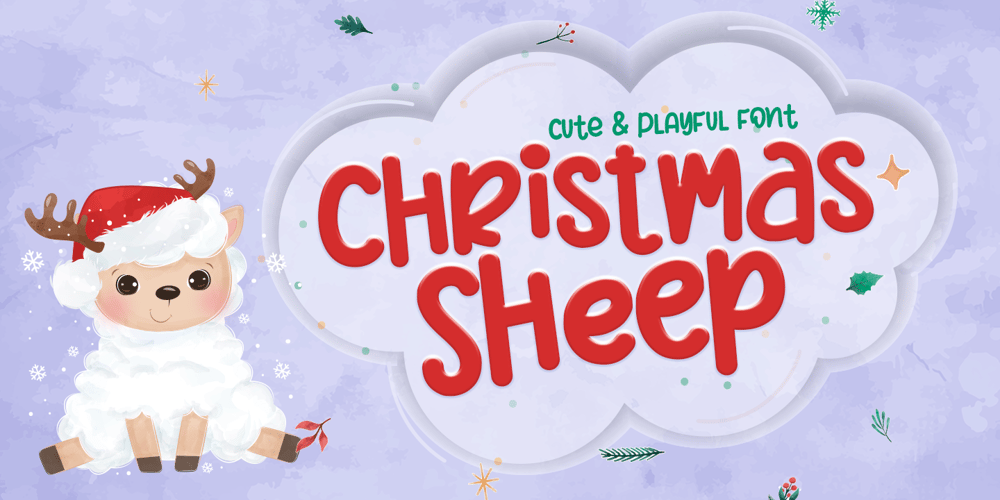
Christmas Sheep Font Family was designed by Stefani Tri Rosa Setiati Christiana and published by Stefani Letter. Christmas Sheep contains 1 styles and family package options. Christmas Sheep is a modern and relaxed display font. It embodies playfulness and authenticity and is the perfect choice for any children activity, school project, Christmas, New Year, Birthday and many more. Add this playful font to your designs and notice how it makes them come alive! This font is PUA encoded which means you can access all of the cute glyphs with ease!